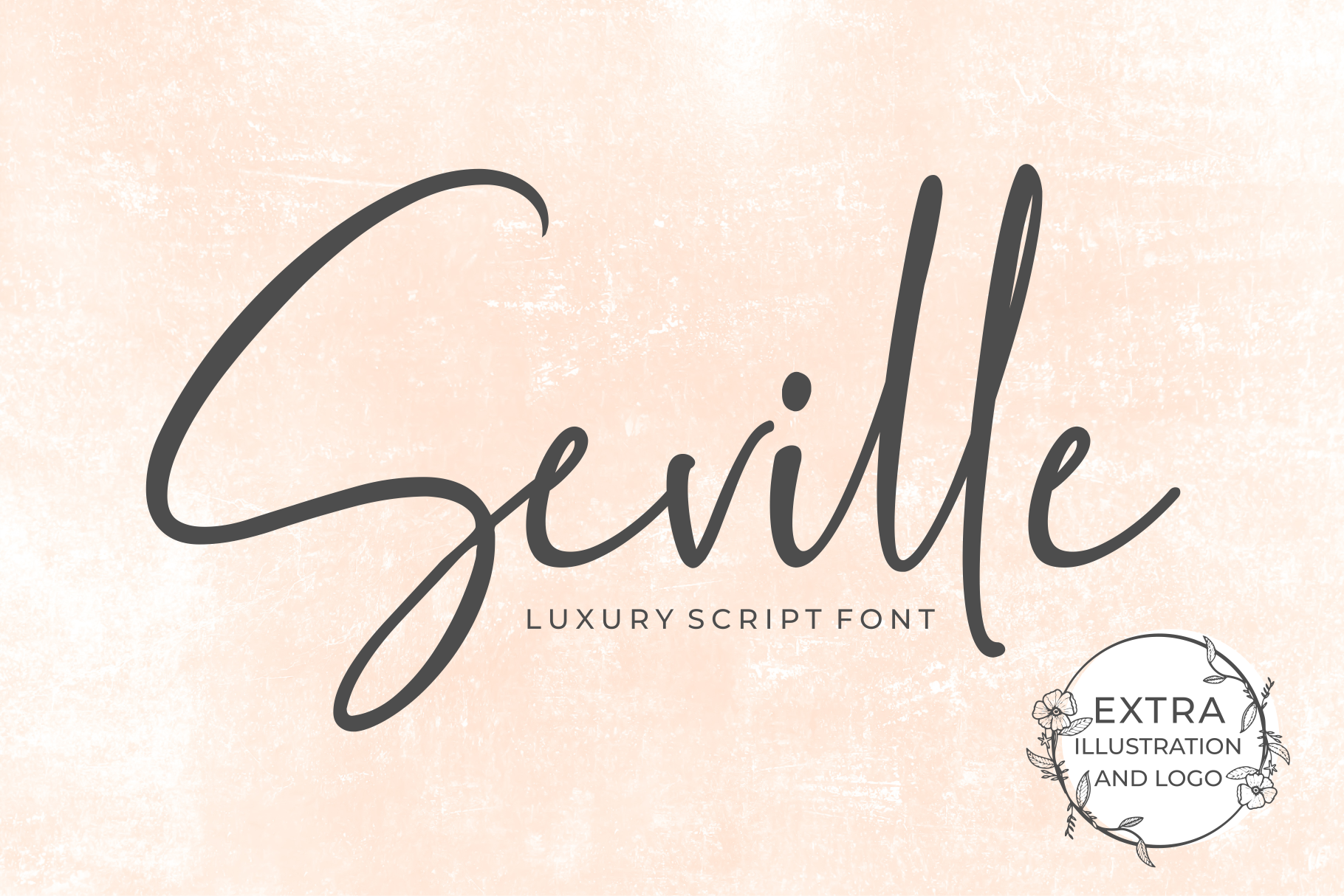
Seville Script Fonts
Introducing Seville Script Fonts the legacy, lifestyle and casual luxury with a natural free flow. This fonts also looks very sweet with her simple style. This fonts contains 4 variations, with opentype features such as stylistic alternates and gorgeous ligatures (225 Ligatures).
Seville Script Fonts perfectly paired with various visual needs with the concept of simplicity. It's great for logo, printed quotes, badge, insignia, packaging, headline, poster, t-shirt/apparel, greeting card, and wedding invitation, & etc.
- Seville Script Fonts
- Seville Script Fonts Slant
- Seville Script Fonts Alt
- Seville Script Fonts Alt Slant
- Global Multilingual support AÀÁÂÃÄÅCÇDÐEÈÉÊËIÌÍÎÏNÑOØÒÓÔÕÖUÙÜÚÛWYÝŸỲŸÆŒßÞþ